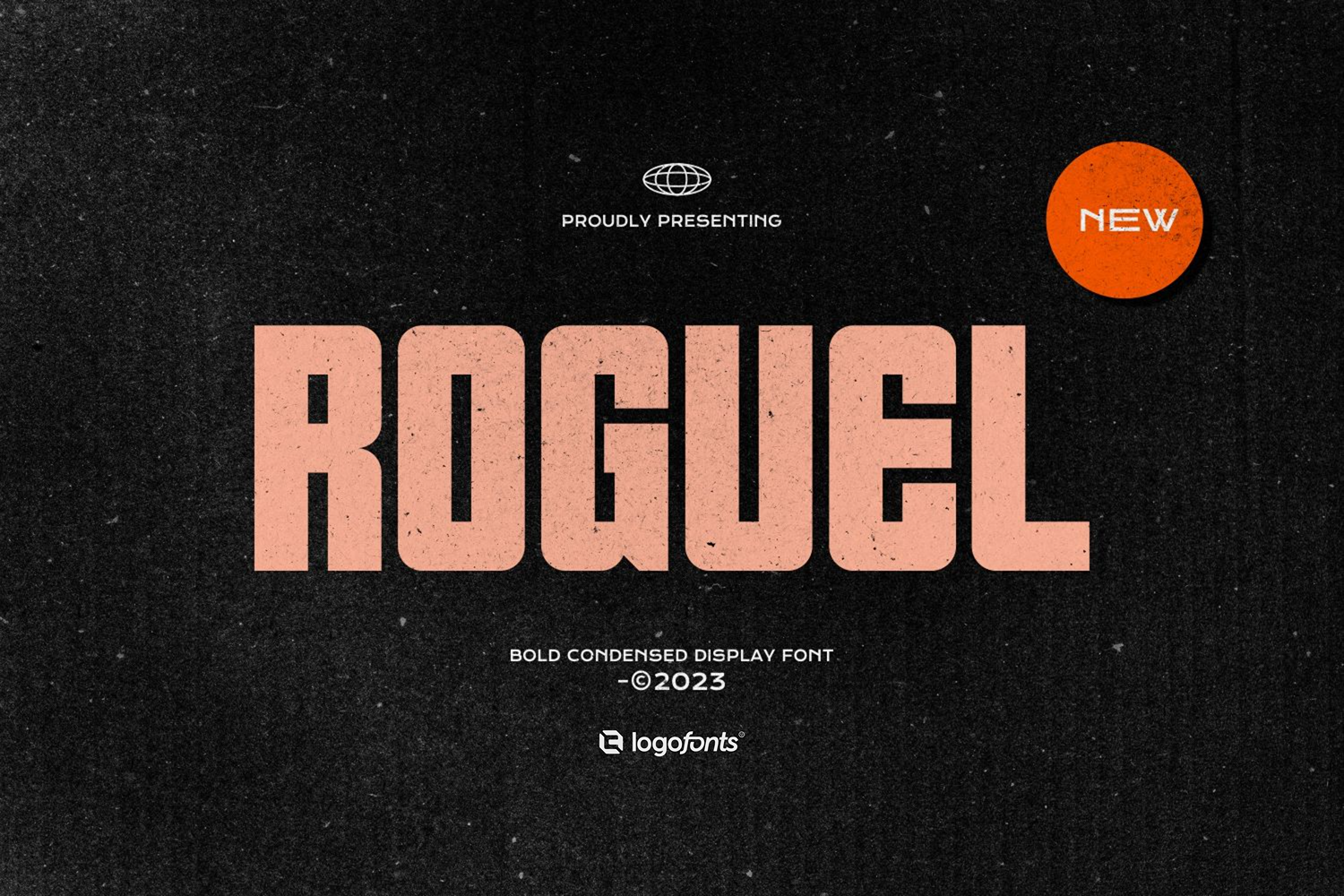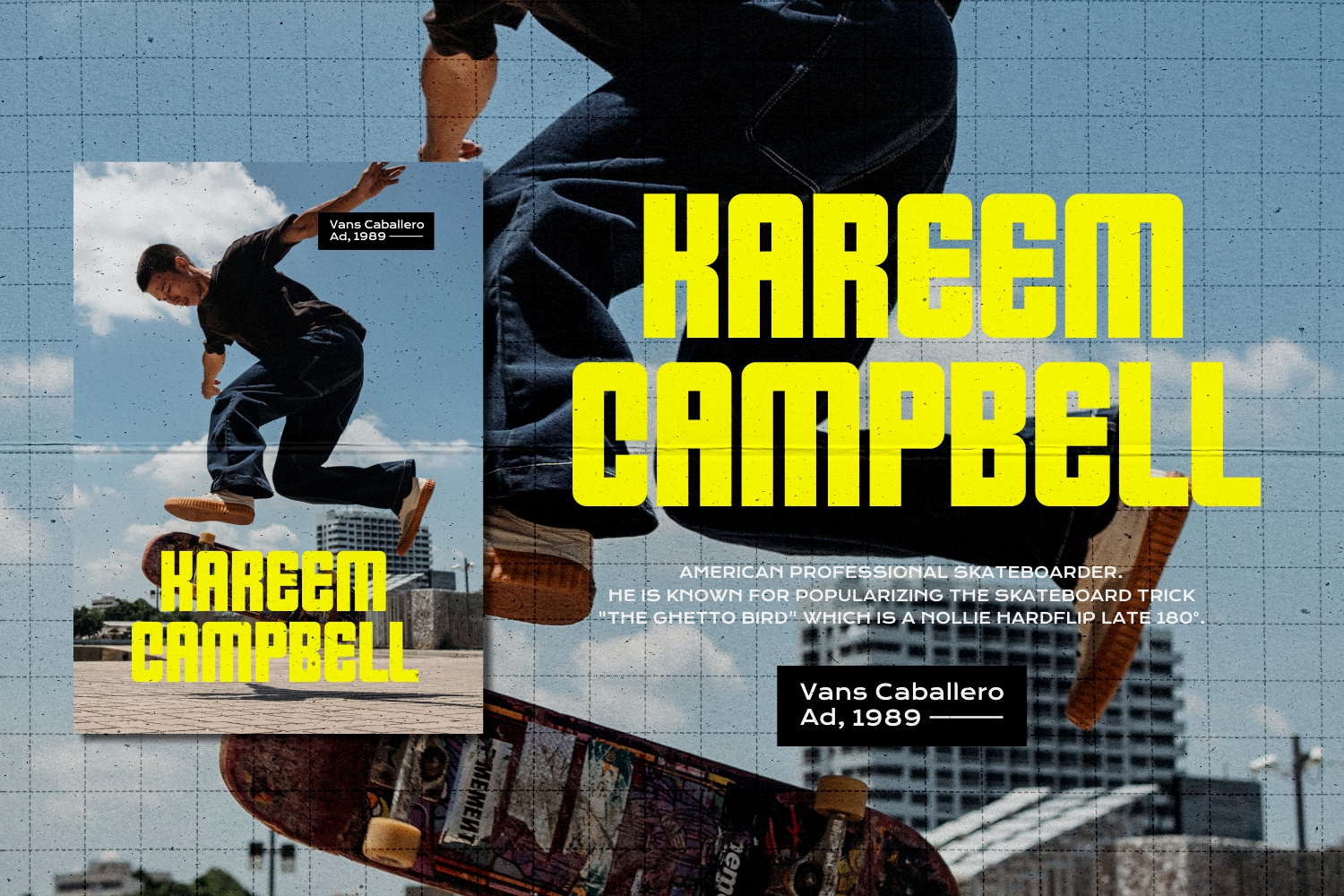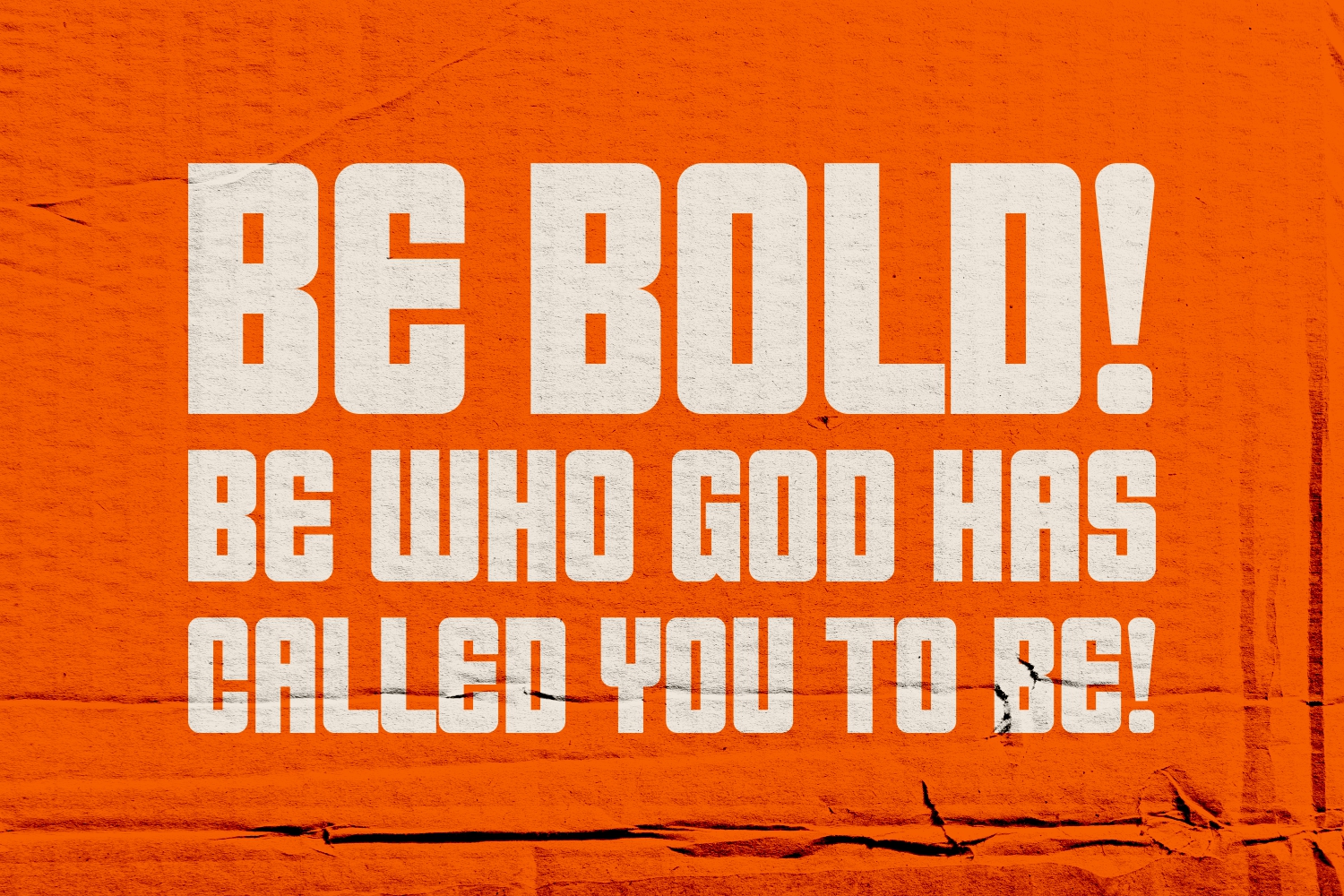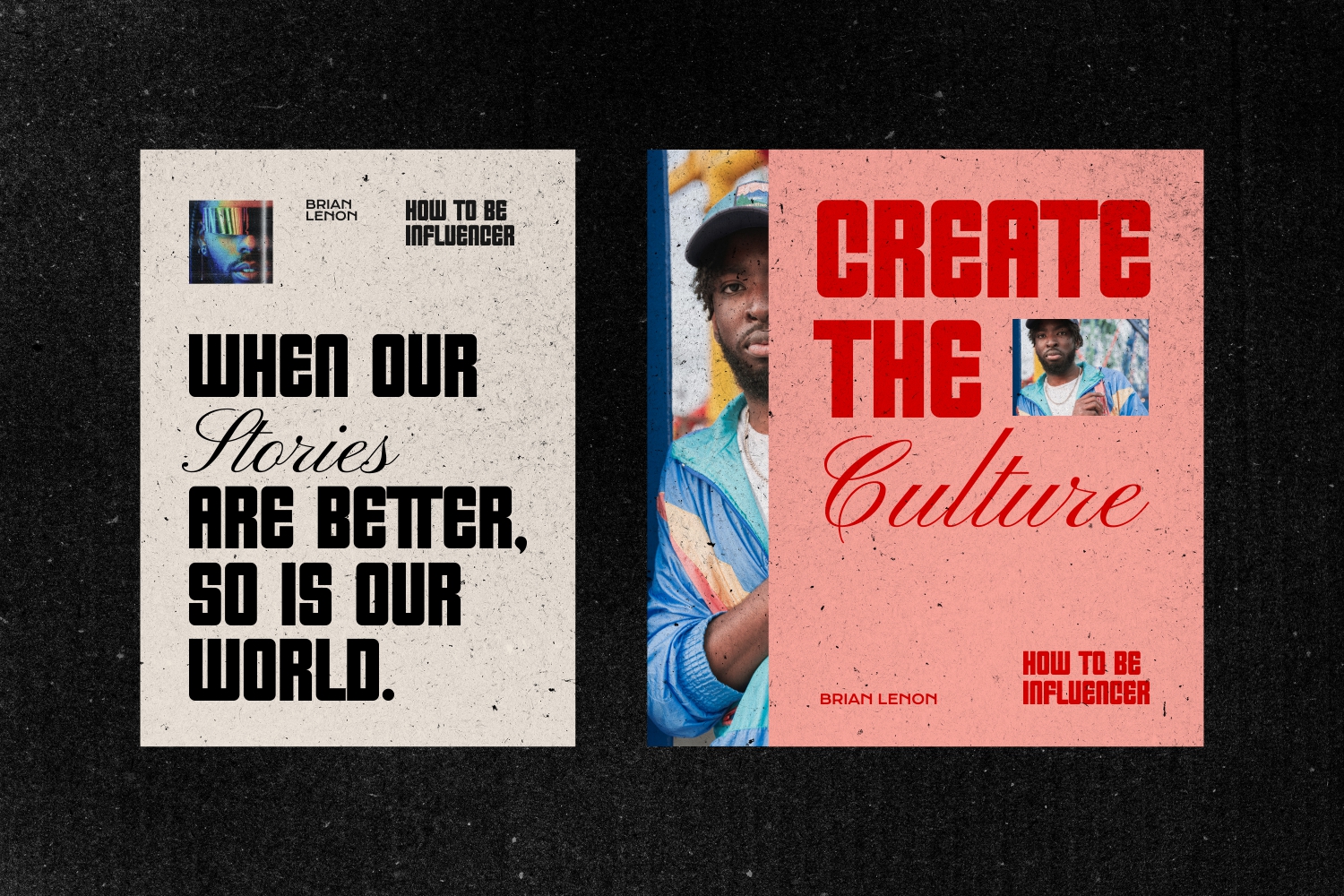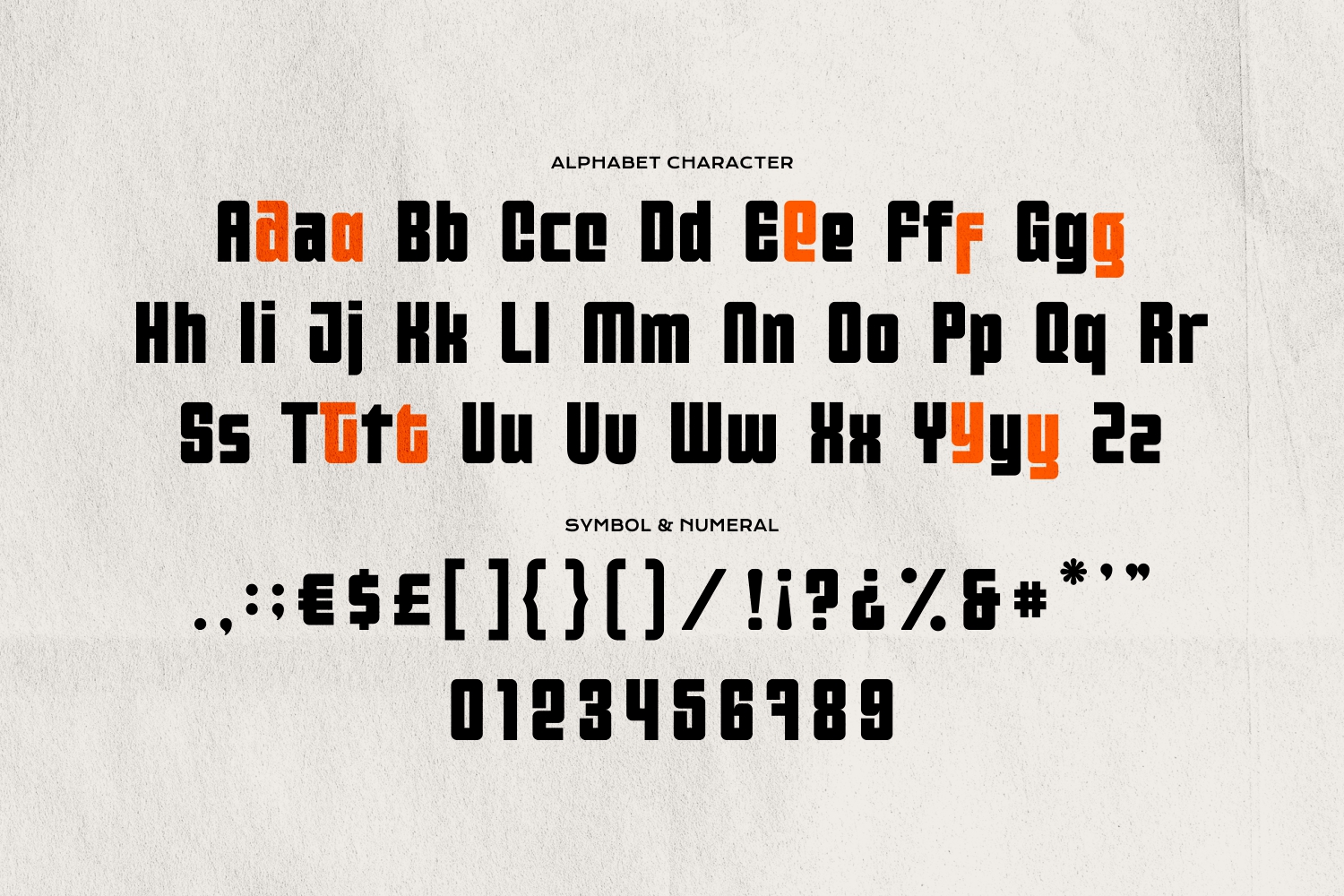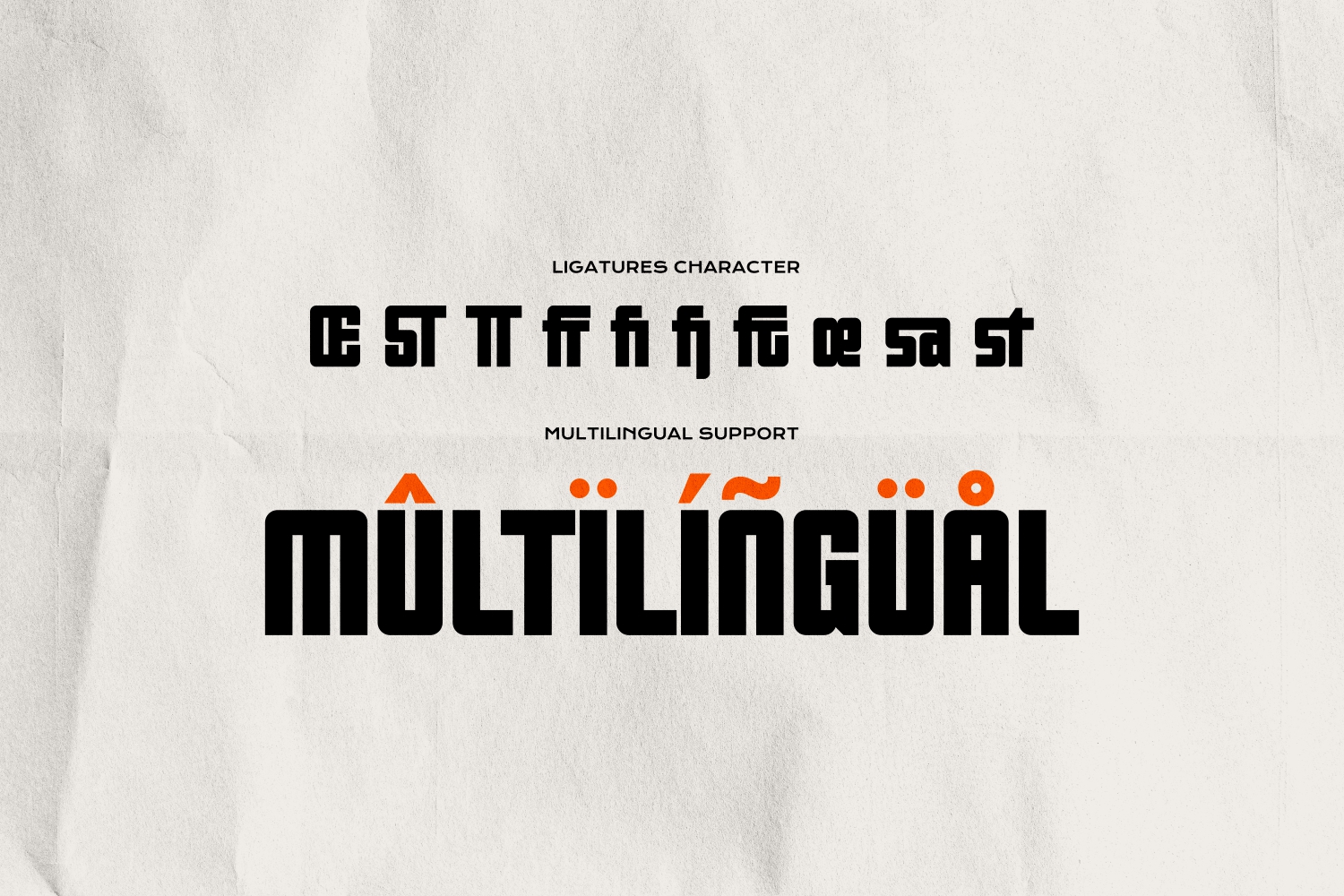
Roguel is a bold condensed display font built to command attention with its striking geometric form and structured design. Featuring strong vertical strokes, subtle alternates, and dynamic ligatures, Roguel blends retro-futuristic vibes with a street-savvy attitude. Perfectly suited for urban branding, editorial design, skateboard culture, and youth-focused campaigns, it thrives in large headlines and poster layouts.
The font includes uppercase, lowercase, numerals, punctuation, multilingual support, and a wide array of alternates to enrich visual variety. With its gritty yet modern edge, Roguel delivers versatility for impactful statements across print and digital media—ideal for fashion graphics, protest posters, bold social campaigns, and edgy merchandise.